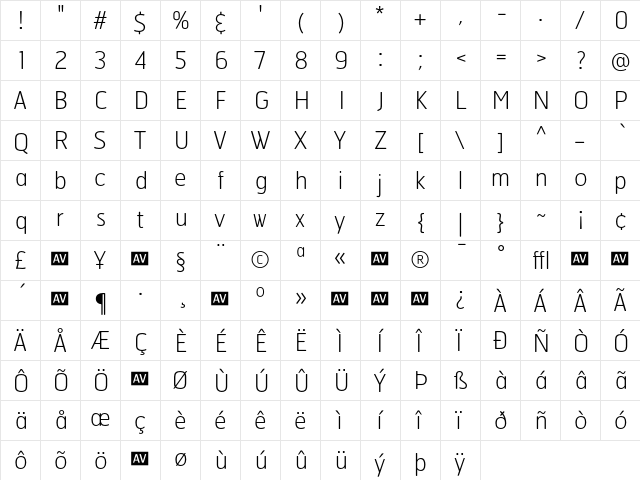
Hermes Thin
Design Context for Hermes Typeface
Hermes offers clean, dependable letterforms without strong stylistic allegiance, making it a practical choice for designers who need flexibility. The delicate stroke weight brings airiness and refinement to layouts.
Pro Tip: Use Hermes in both headline and body roles to test its range before committing to a single application.